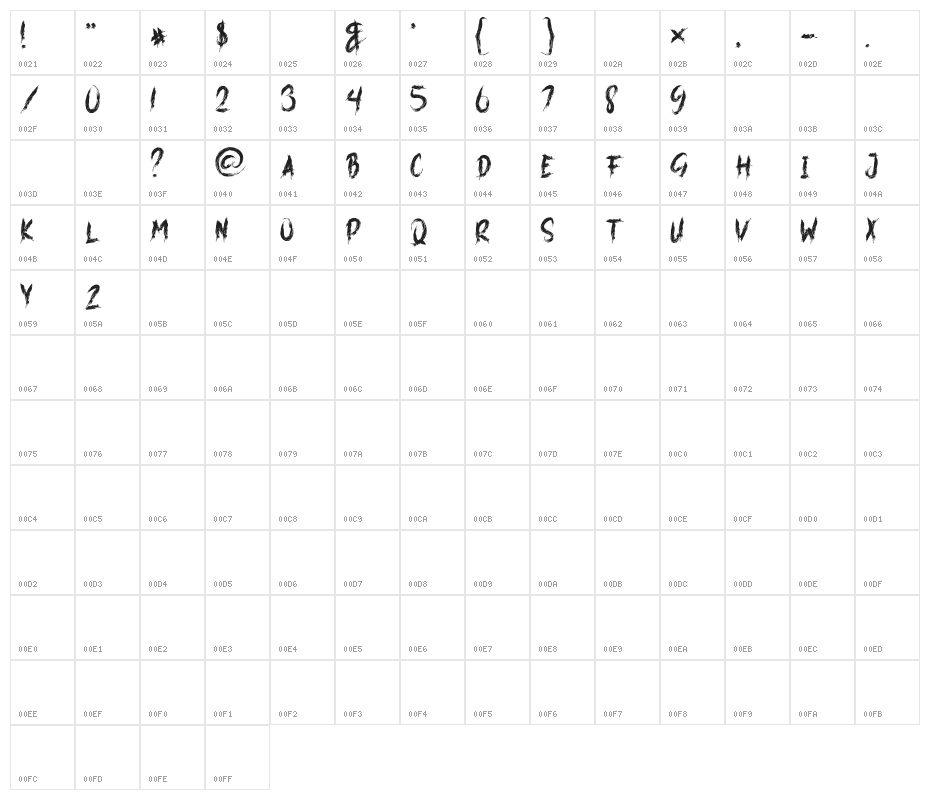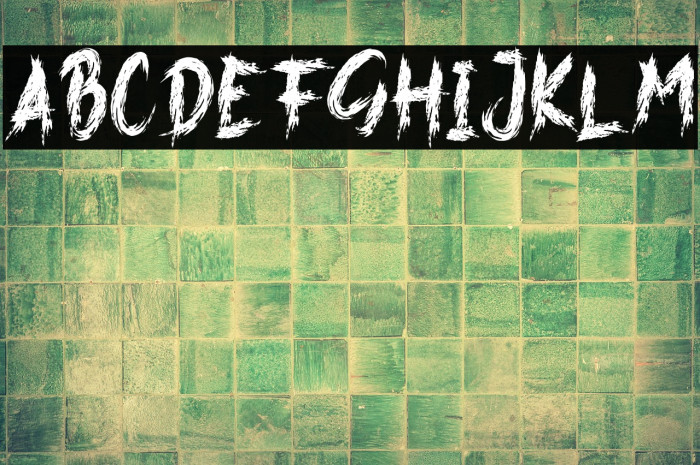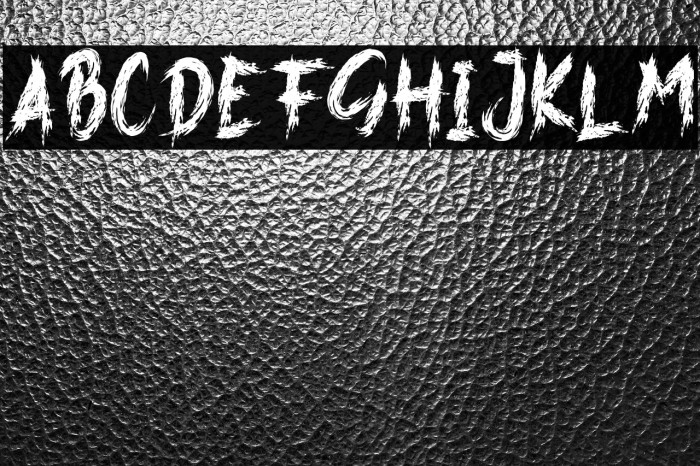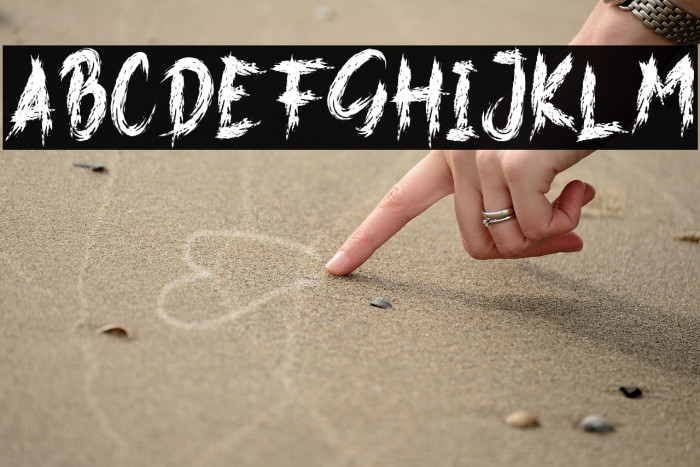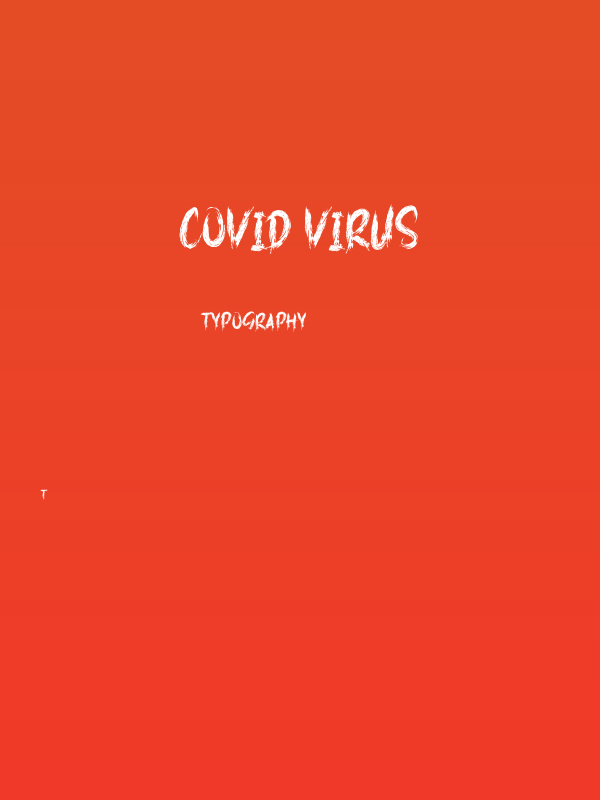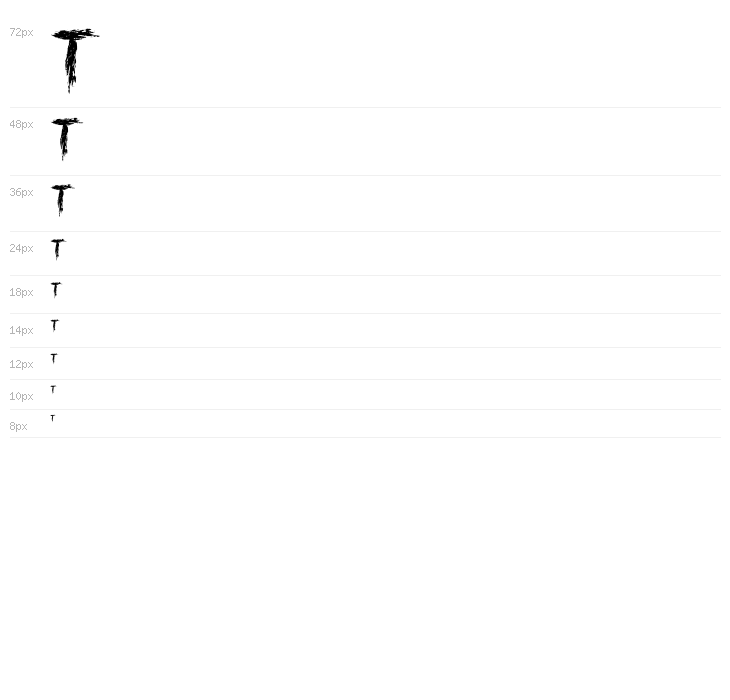
COVID VIRUS Font
COVID VIRUS Description
This font features a highly textured and distressed appearance, reminiscent of brush strokes or splatters. The characters are bold and dynamic, with an irregular and chaotic style that conveys a sense of urgency and intensity. The uppercase letters are particularly striking, with jagged edges and varying stroke widths that create a sense of movement. The numerals and special characters maintain this rugged aesthetic, ensuring consistency across all glyphs. This font is ideal for projects that require a dramatic and eye-catching look, such as horror-themed designs, edgy posters, or impactful headlines.
| Use Case | Headlines, Posters, Logos |
| Proposed Projects | Horror-themed designs, edgy posters, impactful headlines, album covers, and video game graphics. |